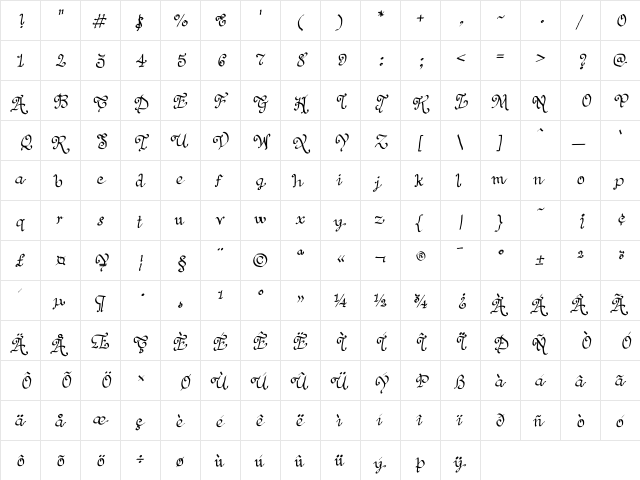
JD Priscus Regular
| Foundry | Jecko Development |
| Designer | Jecko Development |
Design Context for JD Priscus Typeface
JD Priscus is a composed and adaptable typeface that performs quietly and consistently across a wide range of design contexts.